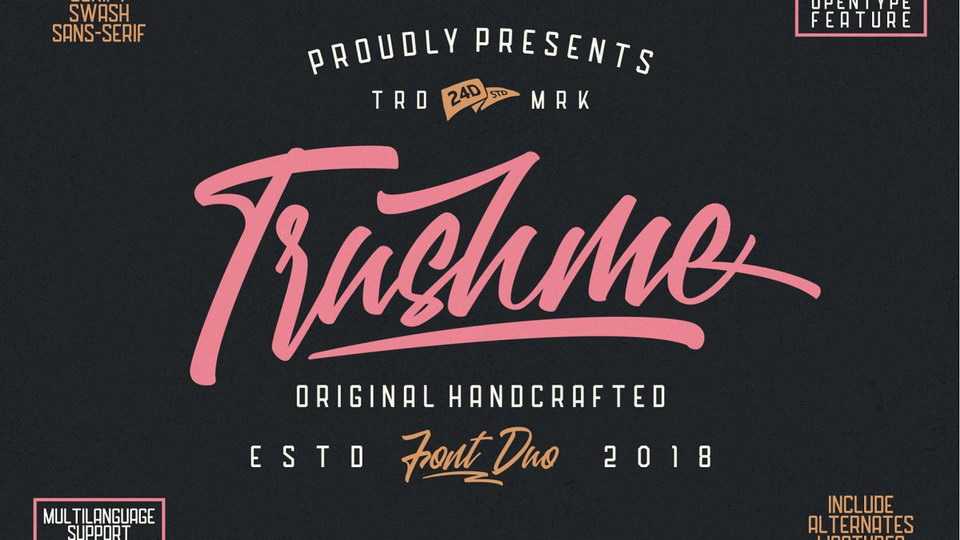
Trushme Script Font › Fontesk – Download Grátis
Download Trushme font, a classy handwritten font that gives an extraordinary touch for your design. Trushme font is to use for any kind of design such as branding projects, logos, social media posts and more.
Designer: Holis Majid